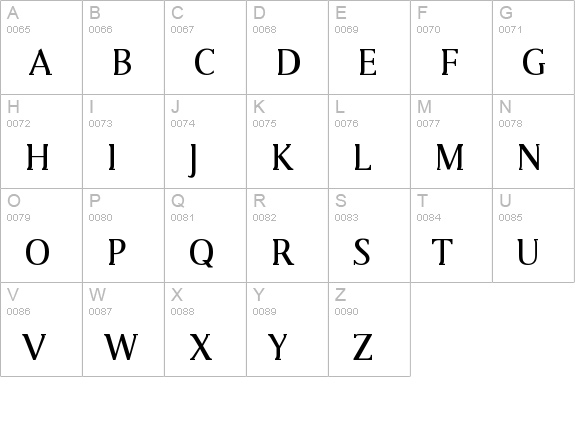
Catherine Font Details
Catherine font is a stunning display typeface that exudes elegance and sophistication. With its delicate serifs and graceful curves, Catherine is perfect for adding a touch of class to your design projects. This versatile font is ideal for creating wedding invitations, branding materials, and more. What sets Catherine font apart is not only its timeless beauty but also the fact that it is completely free to download. You can easily access this exquisite typeface at FontsMarket.com, where you can unleash your creativity without any cost. Don't miss out on the opportunity to elevate your designs with the exquisite Catherine font - download it now and let your imagination soar.